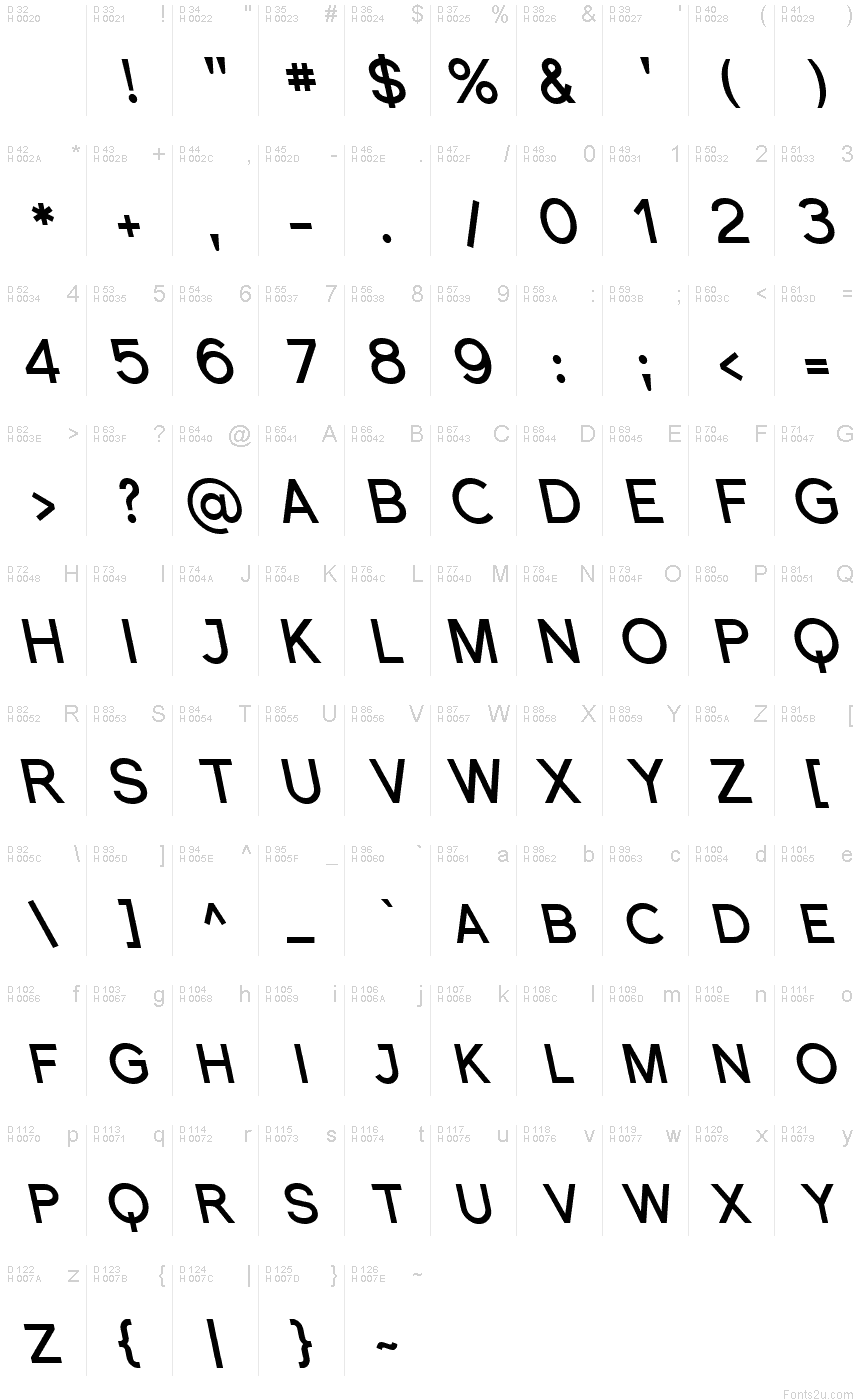
Florencesans SC Rev Bold Italic
Florencesans SC Rev Bold Italic font by Derek Vogelpohl is a free sans serif typeface with a sharp, kinetic twist. Its tall, slanted letters, sliced terminals, and chunky weight give every word a sense of forward motion, like it’s leaning into the wind. The mix of rigid angles and smooth inner curves keeps it readable while still feeling bold, noisy, and a bit rebellious.
Using Florencesans SC Rev Bold Italic, headlines snap to attention and stay there. This free font shines on posters, logos, sports graphics, tech branding, album covers, and bold packaging where you need energy more than subtlety. Set it large for maximum impact, and pair it with a clean, neutral sans serif from the Florencesans SC Rev family or similar for supporting text.